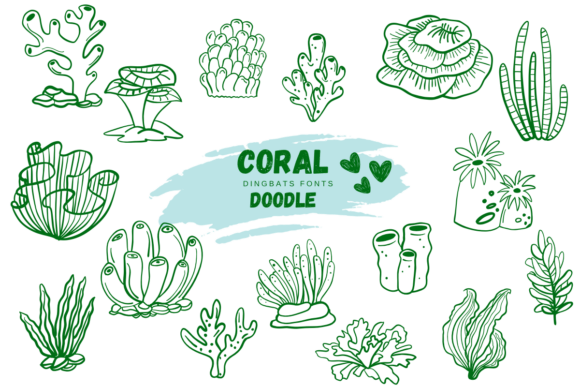
Unleash Your Creativity with the Coral Doodle Font
Have you ever sat at your desk, staring at a blank piece of paper, trying to come up with the perfect design for a project? The blank space can be intimidating, but with the right tool, the possibilities become endless. For designers and crafty enthusiasts, the Coral Doodle Font is a game-changer. This charming dingbats font features a sketched theme that adds a personal touch to any project.
The Coral Doodle Font is designed to enhance your creative projects, from wedding invitations and DIY crafts to decorations and logos. Its unique style makes it a valuable asset for designers looking to add a touch of whimsy and personality to their work. With the Coral Doodle Font, you’ll be able to bring your ideas to life in a way that’s both fun and professional.
- Unique Characteristics: Coral Doodle Font features a playful, hand-drawn design with intricate doodle elements and a touch of whimsy, making it perfect for creating eye-catching and unique visual content.
- Character Set: This font includes a comprehensive set of characters, including uppercase and lowercase letters, numbers, punctuation marks, and special characters, making it suitable for a wide range of applications.
- Font Weight: Coral Doodle Font comes in two font weights: Regular and Bold, allowing you to choose the perfect weight to match your design needs.
Coral Doodle Font Review
I recently had the chance to work with the Coral Doodle Font, and I have to say it’s a unique addition to any design project. Here are some of the things that caught my attention.
- The font’s playful, handwritten feel makes it perfect for creative projects like invitations, party decorations, and children’s materials.
- The Coral Doodle Font comes in a variety of styles, from cursive to bold, giving you plenty of options to choose from.
- The font’s imperfections and irregularities give it a charming, handmade look that’s sure to stand out.
- The font may not be the best choice for formal or professional projects, as it can come across as unpolished or amateurish.
- The font’s irregularities can make it difficult to read in certain situations, such as at small font sizes or in busy layouts.
- The font may not be suitable for projects that require a high level of precision or accuracy.
Overall, I think the Coral Doodle Font is a fun and creative addition to any design project. While it may have some limitations, it’s perfect for projects that require a playful, handmade feel. With a little caution and careful planning, the Coral Doodle Font can be a great choice for designers looking to add some personality to their work.
Tips for Getting the Most Out of the Coral Doodle Font
Use the Coral Doodle font for playful, whimsical designs, such as:
- Children’s party invitations.
- Wedding stationery.
- Brand logos and identity.
Remember to pair the Coral Doodle font with other playful fonts and graphics to create a cohesive design.